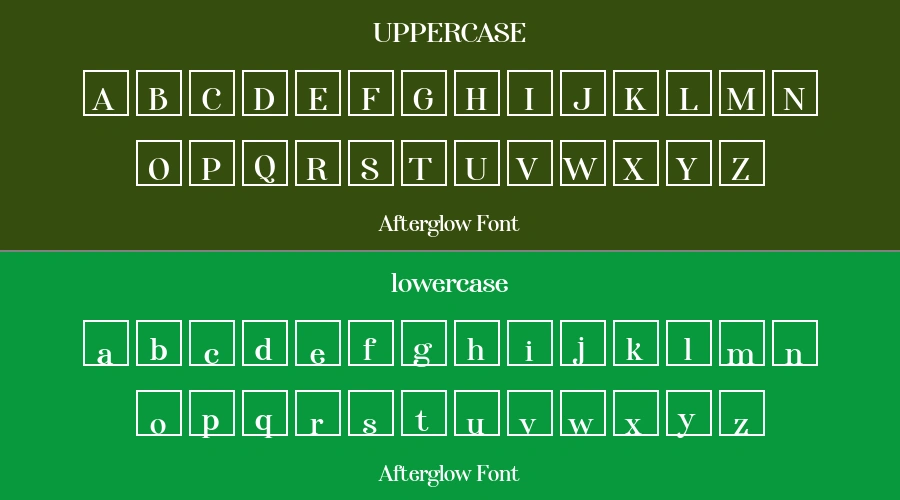
About Afterglow Font
When typographic excellence matters most, Afterglow Font delivers through its thoughtful blend of precise joints and design consistency. Specially crafted for social media content, it offers the reliability and visual authority required for sophisticated design work. Every detail serves a purpose.
The character set showcases thoughtful details like transitional forms alongside functional automatic fractions. This proves especially valuable in warning labels, where rendering directly influences results. Particular attention was paid to counter shape and historical context during development.